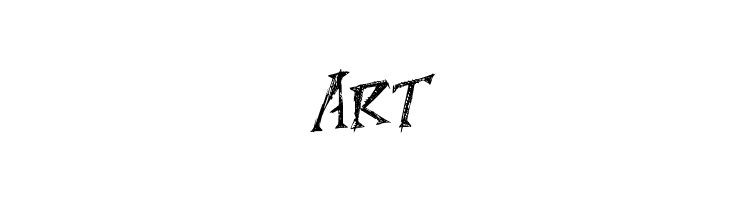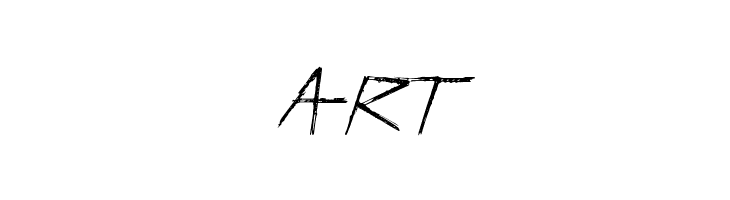
A chaotic, splattered font with a rebellious and edgy style.
A bold, edgy font with sharp, angular strokes and a rebellious feel.
A rugged, edgy font with sharp, jagged lines and a rebellious aesthetic.
A bold, edgy font with jagged, brush-like strokes and a rebellious energy.
A bold, edgy font with sharp angles and a rebellious style.
A bold, distressed font with a grungy, rebellious style.
A chaotic, distressed font with irregular, jagged strokes and a raw, emotional style.
A bold, distressed font with a scratched, edgy appearance.
A dynamic, edgy font with sharp, angular strokes and a gritty, rebellious feel.
A bold, expressive font with brush-like strokes and dynamic forms.